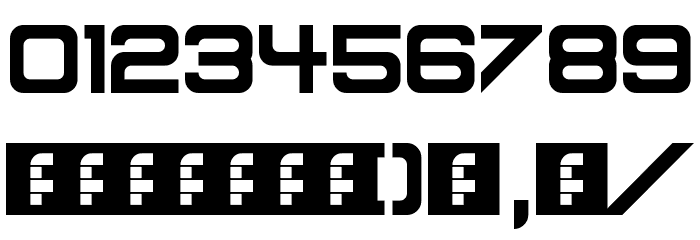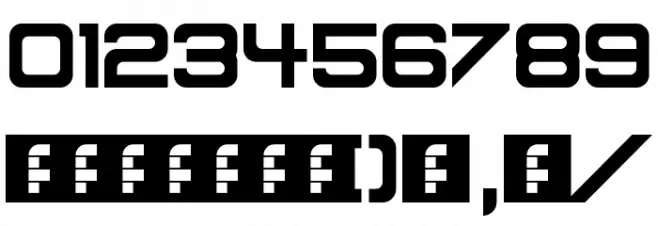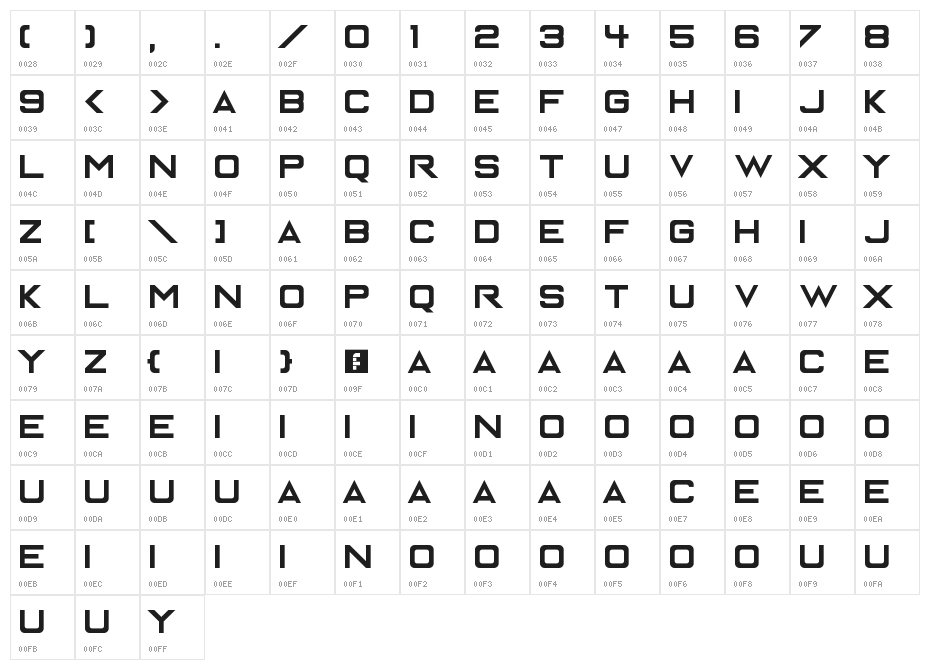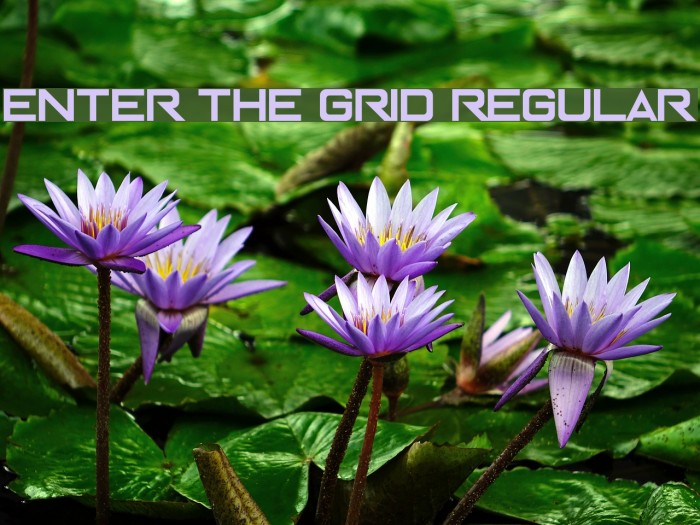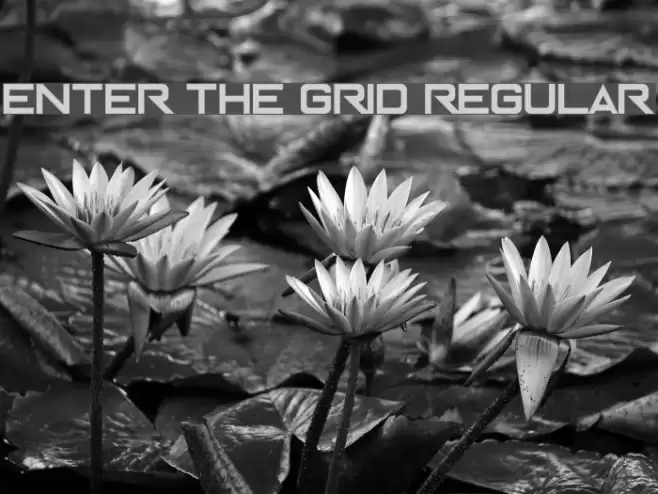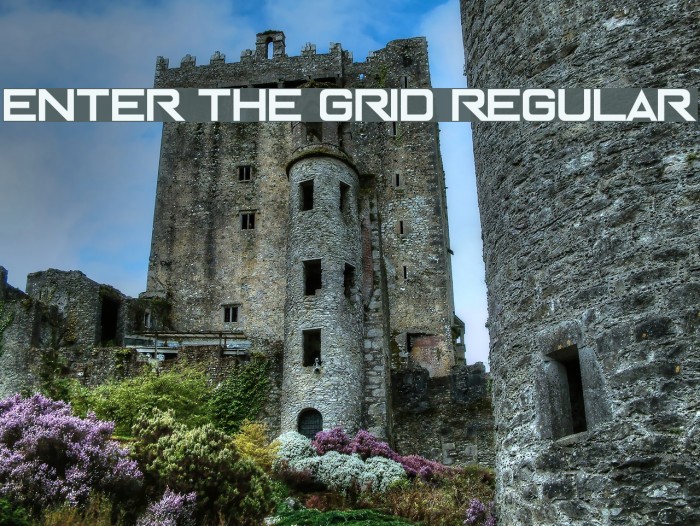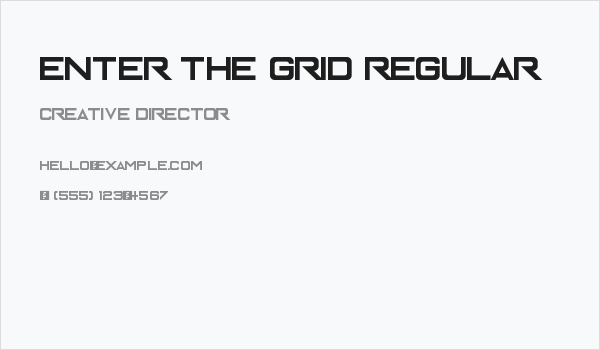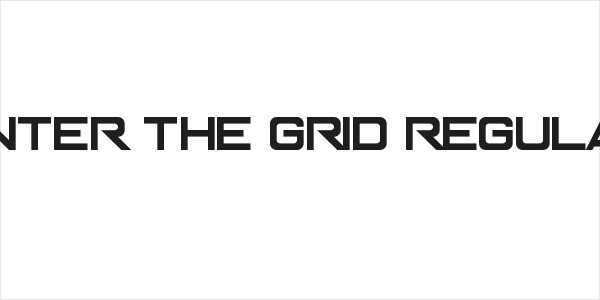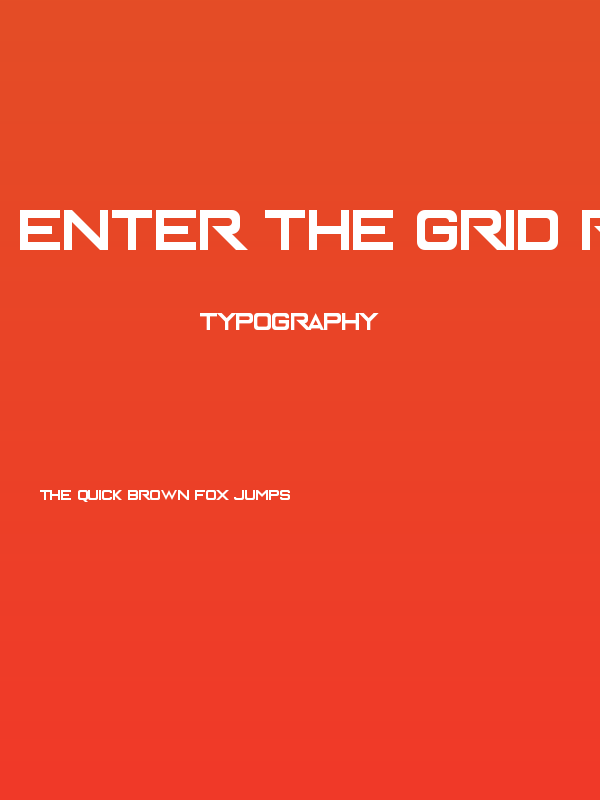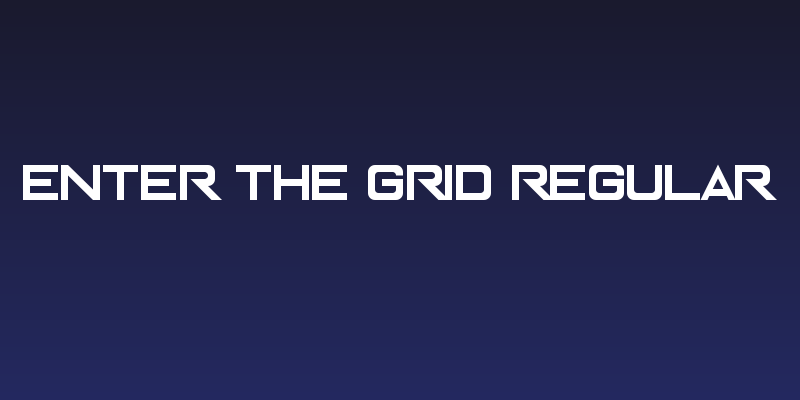
Enter The Grid Regular Font
Enter The Grid Regular Description
This font features a bold, geometric design with a futuristic and digital aesthetic. The characters are constructed with sharp angles and straight lines, giving it a structured and modern appearance. The uppercase letters are uniform in height, while the lowercase letters maintain a consistent style, enhancing readability. The numbers and special characters follow the same geometric pattern, ensuring a cohesive look across all elements. This font's distinct style makes it ideal for projects that require a modern and tech-savvy feel.
| Proposed Projects | Ideal for tech branding, digital interfaces, video game titles, and sci-fi themed projects. |